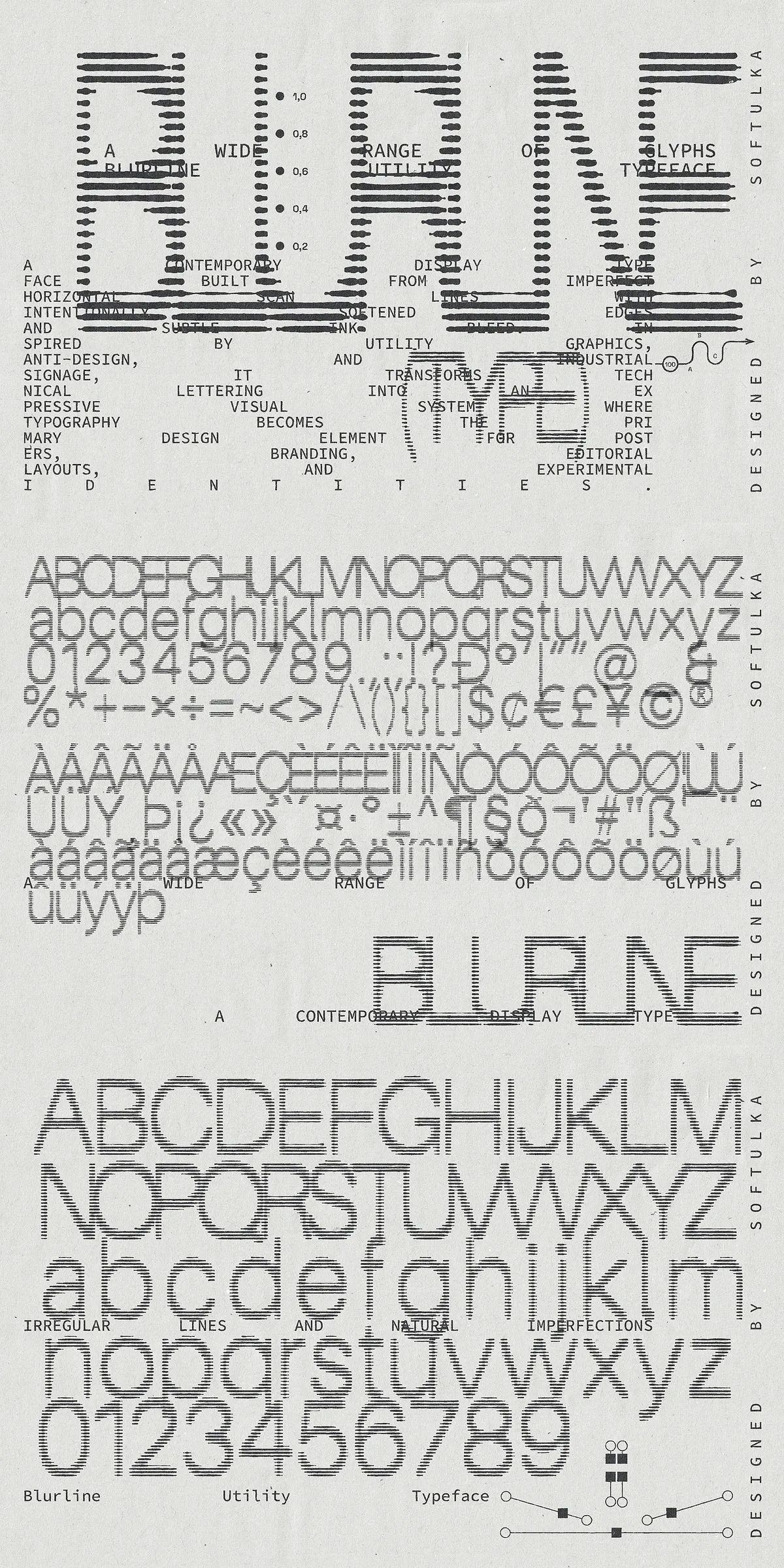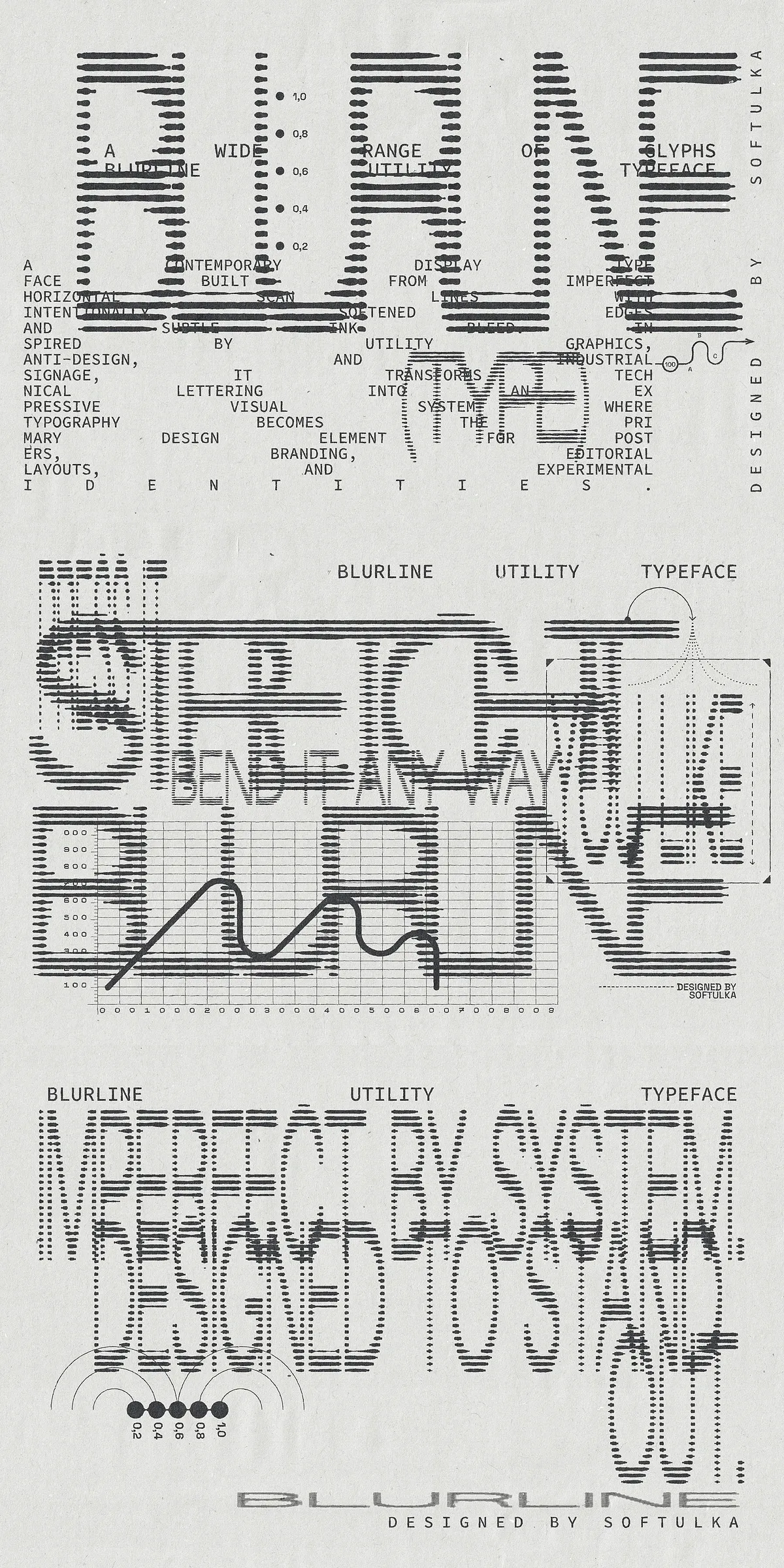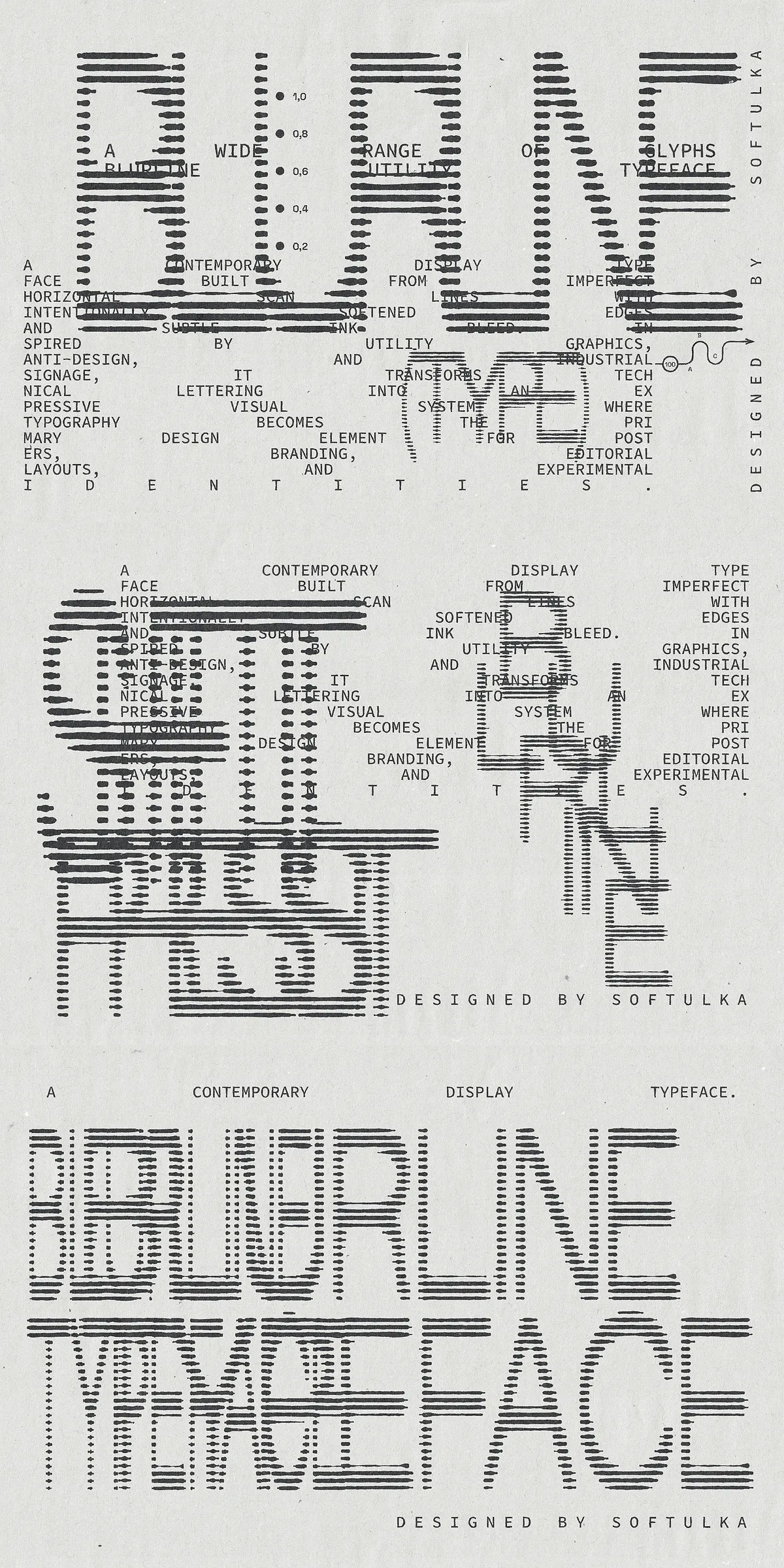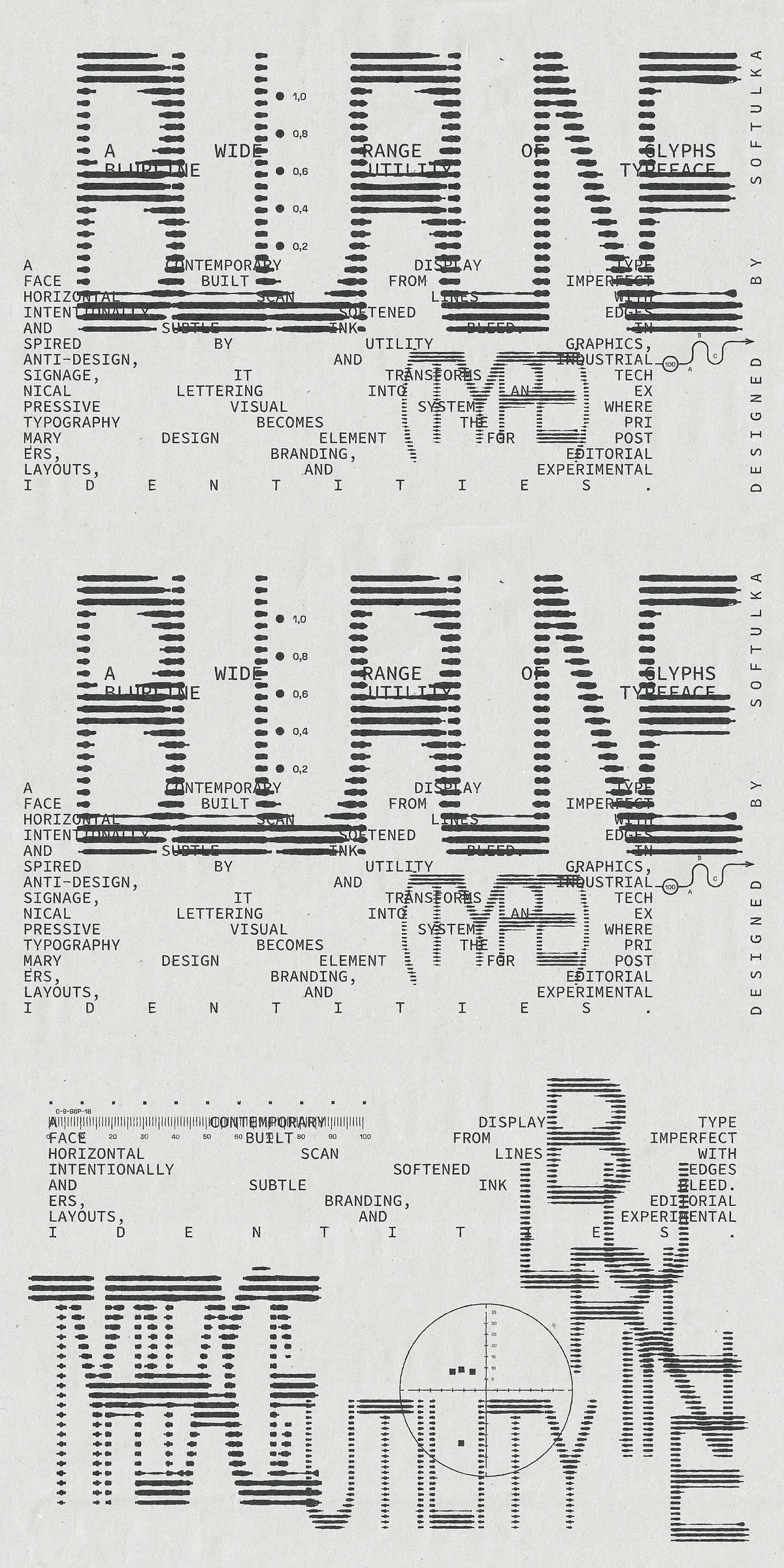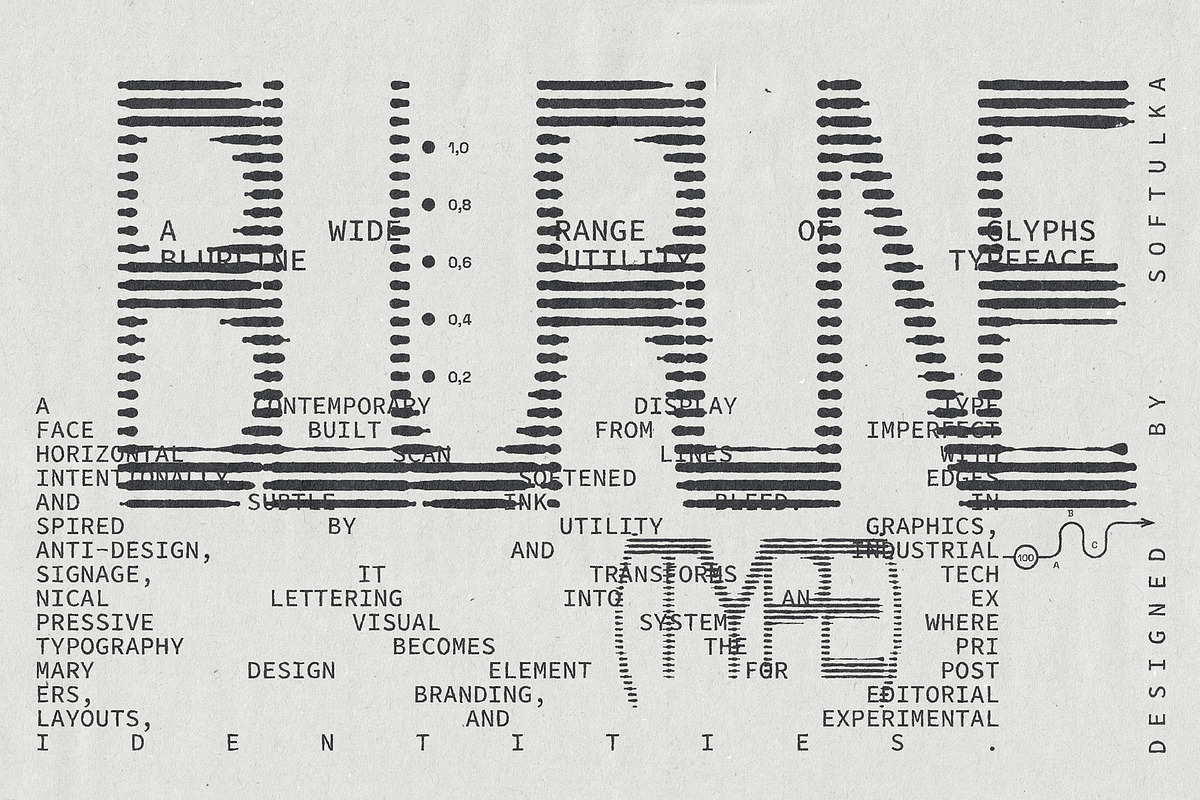
Scanline Industrial starts from simple, mechanical marks: imperfect horizontal scan lines that carry the memory of analog reproduction. We intentionally softened the edges and introduced subtle ink bleed to evoke tactile printing and industrial signage. The result transforms functional lettering into an expressive visual system. Rather than masking imperfections, this design amplifies them so each glyph reads as a crafted object with personality and energy. The typeface draws inspiration from utility graphics, anti-design movements, and utilitarian signage to deliver a voice that feels both technical and emotionally charged.
How Scanline Industrial Becomes The Primary Design Element
Use Scanline Industrial as a visual anchor. At large sizes the horizontal scan textures assert themselves, turning headlines into textured graphics. The distressed strokes produce rhythm and motion across a layout, allowing the type to work as both copy and ornament. In posters and editorial spreads, the type creates focal points that demand attention. For branding and experimental identities, the scanline motif scales into badges, logotypes, and display marks. Designers will find the family elevates simple compositions into immersive, tactile statements.
Practical Applications And Recommended Use Cases For Designers
Scanline Industrial performs strongly across media. Apply it to poster headlines that require raw presence, product branding that needs industrial attitude, editorial display that favors experimental structure, and installations or environmental signage that require legible display letterforms with character. The typeface thrives when paired with minimal sans serifs to balance texture, or with clipped geometric marks to emphasize contrast. Because the design reads clearly at display sizes, it excels in advertising, packaging, event identity, and any project that benefits from bold typographic personality.
Suggested Pairings And Implementation Strategies For Best Results
- Pair with a neutral geometric sans for controlled contrast and legibility.
- Use bold display sizes to reveal scanline texture and tactile bleed effects.
- Reserve lighter tracking and tighter letterspacing for stacked logotypes.
- Combine with duotone or halftone backgrounds to enhance the analog aesthetic.